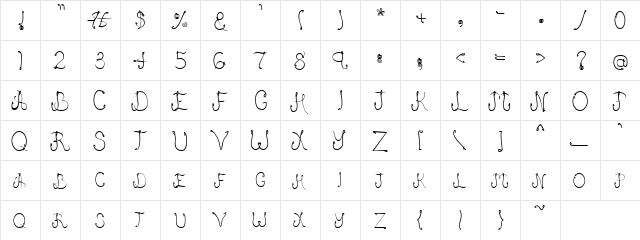
PC Hook & Line Regular
Design Context for PC Hook & Line Typeface
PC Hook & Line is a composed and adaptable typeface that performs quietly and consistently across a wide range of design contexts.